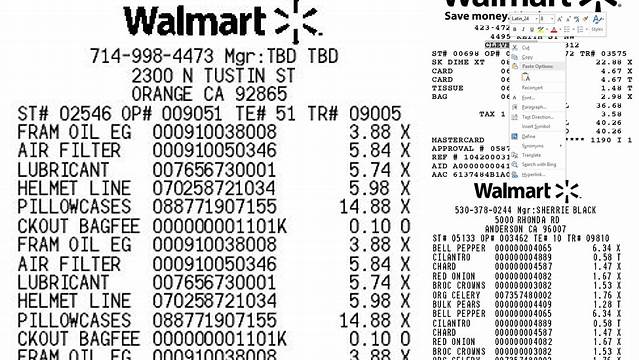
Walmart Receipt Font: Free Download & Identification
Hey guys! Ever wondered about that unique font on your Walmart receipt? You're not alone! Many people are curious about the Walmart receipt font and whether they can use it for their own projects. In this comprehensive guide, we'll dive deep into the world of Walmart receipt fonts, exploring everything from identifying the font to finding free alternatives and understanding the legal aspects of using such fonts. Whether you're a designer, a curious shopper, or just someone who appreciates typography, this article is for you. So, let's get started and unravel the mystery behind the font on your Walmart receipts! We'll cover everything you need to know, making it super easy to understand and maybe even a little fun. Stay tuned as we explore the fascinating world of fonts and how they play a role in our everyday lives.
What Font Does Walmart Use on Their Receipts?
Identifying the exact Walmart receipt font can be a bit tricky, as companies often use customized or proprietary fonts. However, the font used on Walmart receipts is most closely resembled by OCR-A, a monospaced font specifically designed for optical character recognition. This choice makes perfect sense for a high-volume retailer like Walmart, where receipts need to be easily scanned and processed. The OCR-A font is designed for clarity and readability, even when printed on thermal paper, which is commonly used for receipts. When you're looking at your Walmart receipt, you'll notice that each character has a uniform width, a hallmark of monospaced fonts. This consistency helps machines read the text accurately, ensuring smooth transactions and efficient record-keeping. While it might not be the most aesthetically pleasing font, its functionality is undeniable. So, the next time you're staring at your Walmart receipt, remember that the font choice is all about practicality and precision. This ensures that all the important details, like the items you purchased, the date, and the total amount, are captured correctly. Let's move on and explore some reasons why Walmart might have chosen this particular font. It's not just about scanning; there are other factors at play, too!
Why Use OCR-A for Walmart Receipts?
The decision to use OCR-A for Walmart receipts comes down to several key factors, primarily its readability and suitability for optical character recognition. OCR-A is specifically designed to be easily read by both humans and machines, making it an ideal choice for receipts that need to be scanned and processed quickly. Think about the sheer volume of transactions Walmart handles daily; every second counts! The uniform character width of OCR-A ensures that scanners can accurately capture the information, minimizing errors and speeding up the checkout process. Another reason is the legibility on thermal paper. Receipts are often printed on thermal paper, which can sometimes produce less-than-perfect results. OCR-A's simple and clear design ensures that the text remains legible even on this type of paper. This is crucial for customers who need to review their purchases and for Walmart itself, for record-keeping purposes. Furthermore, the use of a standard font like OCR-A helps maintain consistency across all Walmart stores. No matter where you shop, the receipt font will be the same, making it easier for both customers and employees to understand and process the information. In a nutshell, the practicality and efficiency of OCR-A make it the perfect choice for Walmart receipts. It's a font that prioritizes function over form, ensuring that every transaction is accurately recorded and easily accessible. Now that we understand why this font is used, let's see if there are any free alternatives out there.
Free Alternatives to the Walmart Receipt Font
If you're looking for a font that mimics the style of the Walmart receipt font, you're in luck! While the exact font might be proprietary or customized, there are several free alternatives that come pretty close. One of the most obvious choices is OCR-A itself, which is often available as a free download. A quick search online should lead you to various sources where you can obtain this font. Another excellent alternative is MICR E-13B, another font commonly used for magnetic ink character recognition. While primarily used in the banking industry, its monospaced design and clear characters make it a suitable substitute for the Walmart receipt font. You might also consider exploring other monospaced fonts, such as Courier New or Consolas. These fonts offer a similar aesthetic and are widely available on most computers. They may not be an exact match, but they capture the functional, no-frills look of the Walmart receipt font. When choosing an alternative, think about your specific needs. Are you replicating the receipt for a design project? Or do you simply want a font that's easy to read? Depending on your purpose, one alternative might be more suitable than another. Remember, the goal is to find a font that offers similar readability and a monospaced design. So, don't hesitate to experiment with different options until you find the perfect fit. Next, let's dig into where you can download these fonts for free.
How to Identify Fonts You See on Receipts and Elsewhere
Ever been curious about a font you've seen on a receipt, a website, or even a billboard? Identifying fonts can be a fun and useful skill, especially if you're a designer or someone who appreciates typography. There are several tools and techniques you can use to decipher the mystery of an unknown font. One of the easiest methods is to use online font identification tools. Websites like WhatTheFont, Font Matcherator, and Identifont allow you to upload an image of the text or answer a series of questions about the font's characteristics to find a match. These tools work by comparing the font in your image to their extensive databases of fonts. To get the best results, make sure the image is clear and the text is well-defined. Another helpful technique is to look for distinctive features of the font. Are the serifs (the small strokes at the ends of the letters) present or absent? Is the font monospaced, like the Walmart receipt font, or proportionally spaced? What is the overall shape and weight of the letters? By noting these characteristics, you can narrow down your search and potentially identify the font manually. If you're still stumped, consider asking for help from a community of typography enthusiasts. Online forums and social media groups dedicated to fonts are filled with knowledgeable people who are often happy to lend a hand. Just post an image of the font and any details you have, and someone might be able to identify it for you. Identifying fonts can be a bit like detective work, but with the right tools and techniques, you can unravel the mystery and satisfy your curiosity. Let's see how these fonts are utilized in branding.
The Role of Fonts in Branding and Design
Fonts play a crucial role in branding and design, conveying a brand's personality and message through visual communication. The font you choose can significantly impact how your audience perceives your brand. A professional and elegant font might be suitable for a luxury brand, while a playful and quirky font might be better for a children's product. Think about some of the most recognizable brands in the world. Many of them have signature fonts that are instantly associated with their identity. For example, Coca-Cola's Spencerian script is iconic and immediately recognizable. Similarly, the bold, sans-serif font used by Nike conveys a sense of strength and athleticism. When it comes to receipt fonts, like the one used by Walmart, the primary focus is on readability and practicality. While the Walmart receipt font may not be the most aesthetically pleasing, it serves its purpose by ensuring that the information is clear and easily scannable. However, even in functional applications like receipts, the choice of font can still reflect the brand's overall image. A clean and modern font can convey a sense of efficiency and trustworthiness, while a cluttered or difficult-to-read font can create a negative impression. In branding, consistency is key. Using the same font across all your marketing materials, from your website to your business cards, helps create a cohesive and recognizable brand identity. This consistency extends to the font you use on your receipts, as it's another touchpoint with your customers. So, next time you're thinking about your brand's visual identity, remember the power of fonts. They're more than just letters on a page; they're a crucial element of your brand's personality. Next, let's break down the technical aspects of fonts.
Technical Aspects of Fonts: Monospaced vs. Proportional
Understanding the technical aspects of fonts, such as the difference between monospaced and proportional fonts, can help you make informed decisions about typography. This is particularly relevant when discussing fonts like the Walmart receipt font, which is a monospaced font. Monospaced fonts, as the name suggests, are fonts where each character occupies the same horizontal space. This means that the letters 'i' and 'W' take up the same amount of width. This uniformity makes monospaced fonts ideal for applications where alignment is crucial, such as in coding, where consistent spacing is essential for readability. Proportional fonts, on the other hand, allocate space based on the width of each character. A narrow letter like 'i' takes up less space than a wider letter like 'W'. This creates a more visually pleasing and natural reading experience, as the letters flow together more smoothly. Proportional fonts are commonly used in books, magazines, and websites, where aesthetics and readability are paramount. The Walmart receipt font, OCR-A, is a monospaced font because it's designed for optical character recognition. The uniform character width makes it easier for machines to scan and interpret the text on the receipt. While monospaced fonts might not be the most beautiful, they excel in functionality and clarity, especially in situations where machine readability is essential. When choosing a font for your project, consider the purpose and context. If you need precise alignment and machine readability, a monospaced font is the way to go. If you're aiming for a more visually appealing and readable text, a proportional font is generally a better choice. Alright, let's take a deeper look at the OCR-A font and its specific uses.
Resources for Learning More About Fonts and Typography
If you're passionate about fonts and typography and want to deepen your knowledge, there are plenty of resources available to help you on your journey. From online courses to books and websites, you can find a wealth of information to expand your understanding of this fascinating subject. Online courses are a great way to learn about typography in a structured and interactive way. Platforms like Coursera, Skillshare, and Udemy offer courses on various aspects of typography, from the basics of font anatomy to advanced techniques in font pairing and design. These courses often include video lectures, quizzes, and assignments, allowing you to learn at your own pace. Books are another excellent resource for learning about typography.